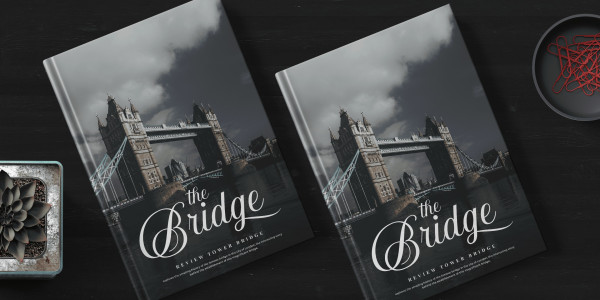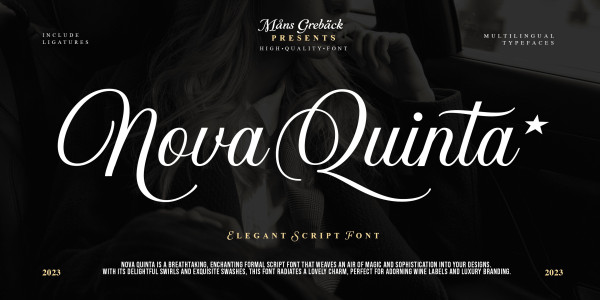
Nova Quinta Font
Nova Quinta Font, is an enchanting formal script font that weaves an air of sophistication into your designs.
With its delightful swirls and swashes, Mans Greback’s typeface radiates a charming elegance, making your design come to life.
Use underscore _ after any word to give the word a tail.
Use multiple underscore to make a longer swash.
Example: Wine_ Labels____